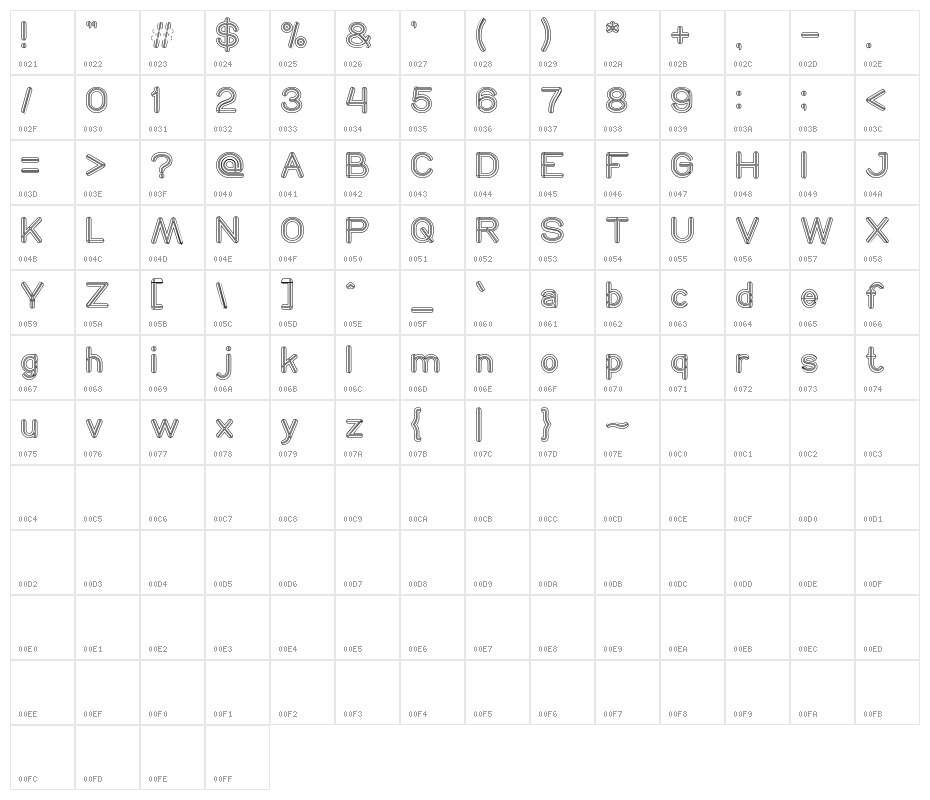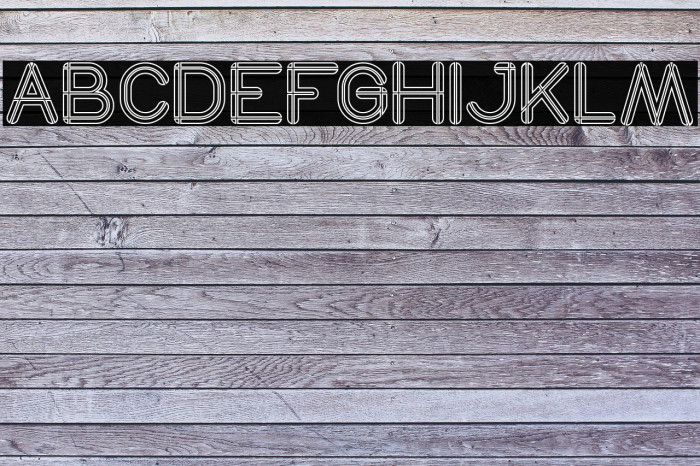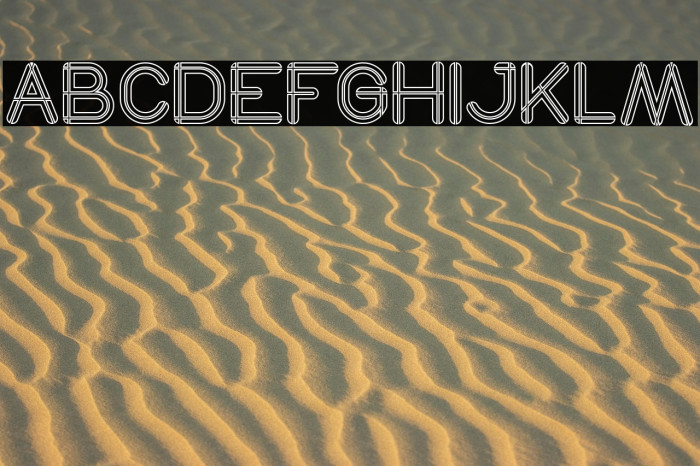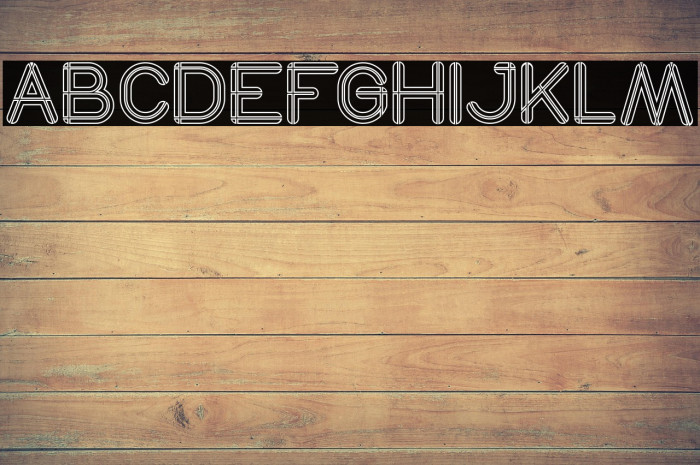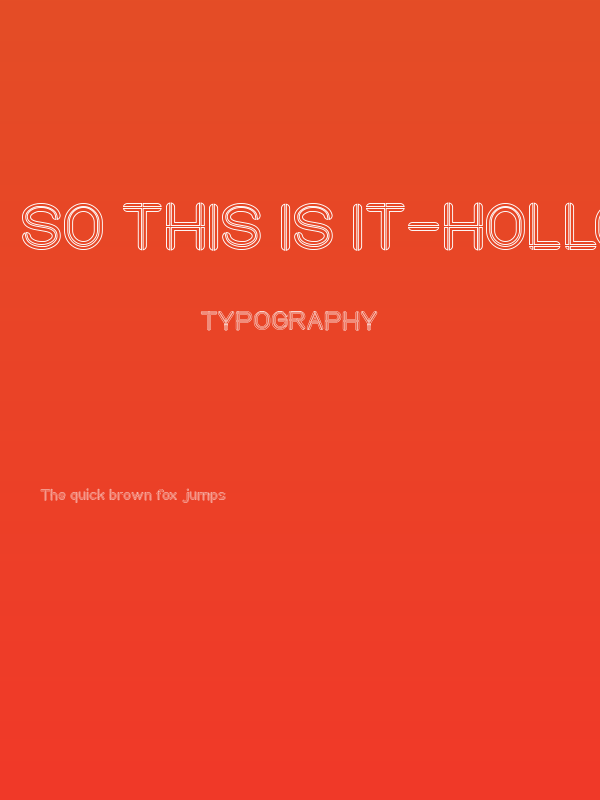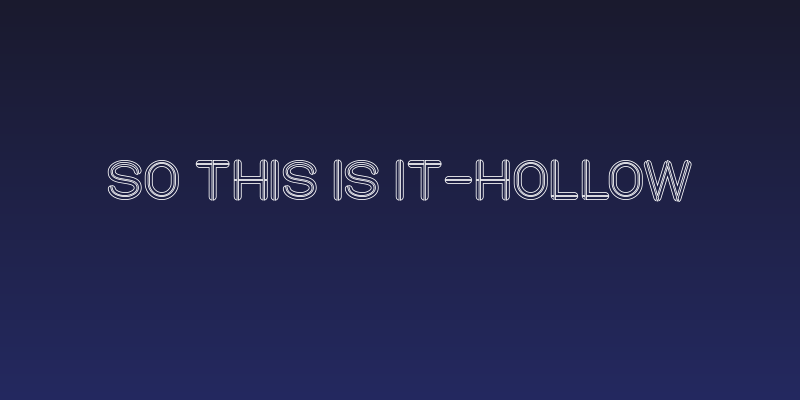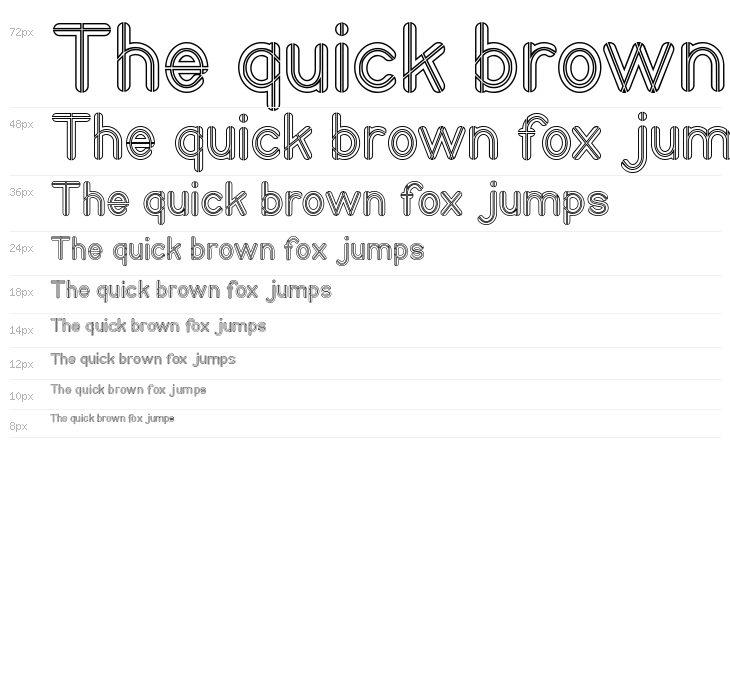
SO THIS IS IT-Hollow Font
SO THIS IS IT-Hollow Description
This font features a unique hollow design with a double-line structure, creating a striking and modern appearance. The characters are evenly spaced and maintain a consistent width, giving it a balanced and harmonious look. The uppercase and lowercase letters, along with numbers and special characters, all share this distinctive outline style. The font is versatile, suitable for creative projects that require a bold yet airy aesthetic. Its geometric shapes and clean lines make it ideal for contemporary designs.